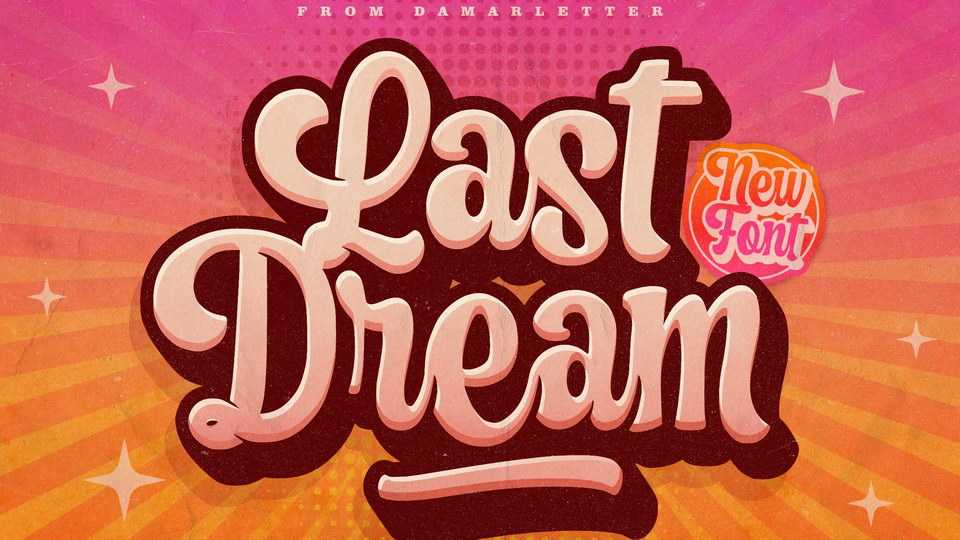
Download Last Dream font, a hand lettered vintage typeface, consisting of two layers. Last Dream is perfect for branding projects, logo, social media posts, advertisements, product packaging, product designs, label, stationery and anything that you want.
Designer: Damarletter